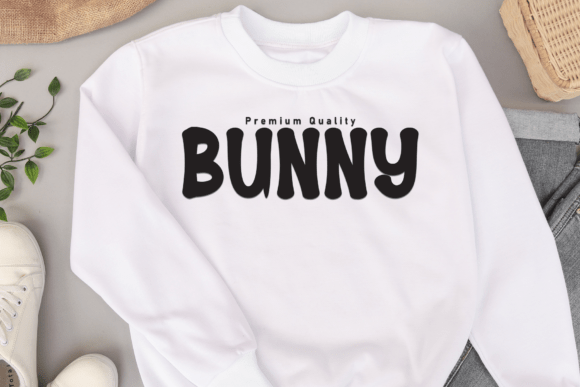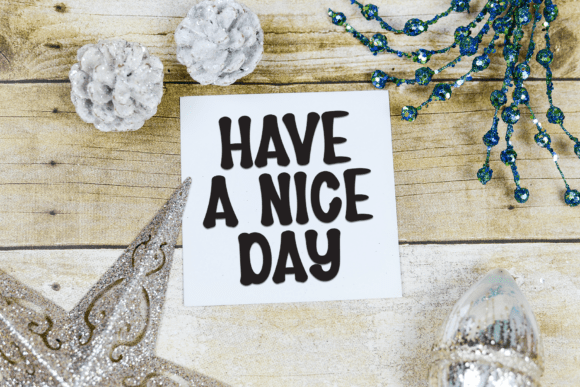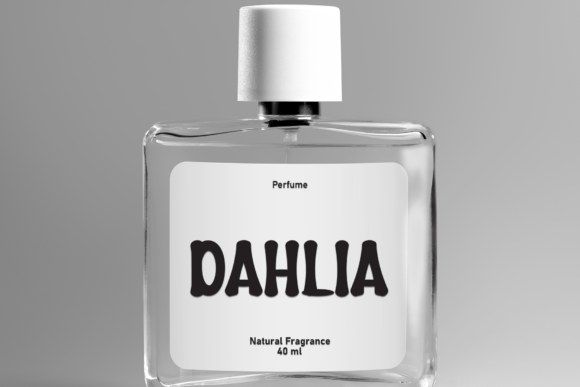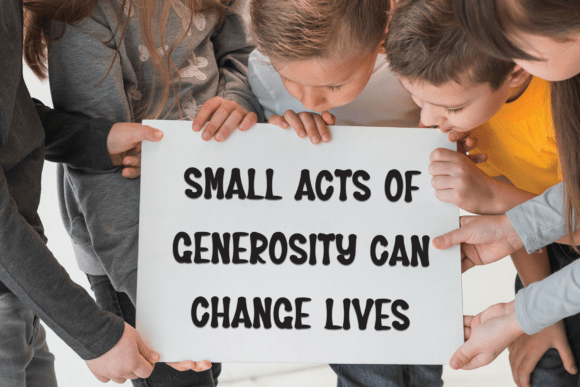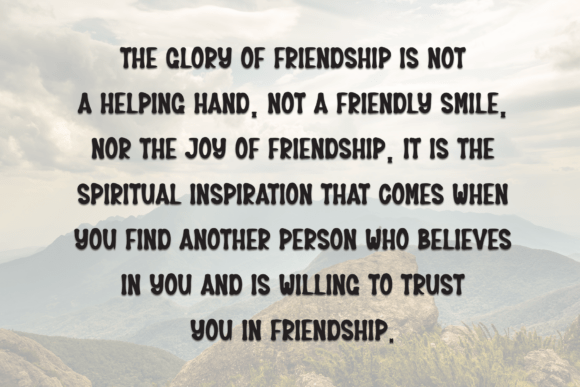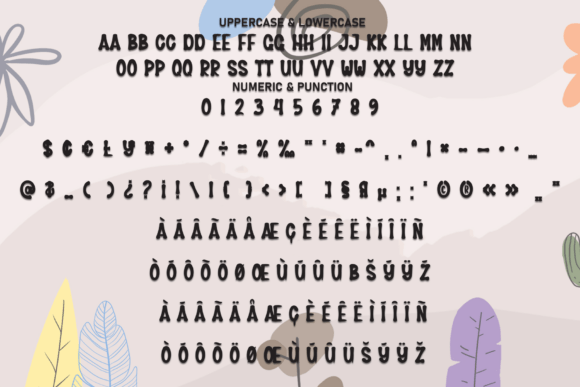
Groovy Font: Elevate Your Designs with a Captivating Handcrafted Typeface
Are you tired of using the same old fonts in your designs? Look no further! Introducing the Groovy Font, a handcrafted typeface that is brimming with joyous expression. This playful and charming font is perfect for designers and crafters who want to add a touch of enchantment to their creative projects.
The Perfect Font for Dreamy Designs
The Groovy Font is effortlessly elevating the world of design with its unique and captivating style. Its playful charm makes it the ideal match for conjuring dreamy wedding invitations, heartfelt greeting cards, or any design mission seeking a touch of whimsy. Whether you’re a designer, crafter, or DIY enthusiast, this font is sure to breathe life into your design dreams.
What Makes Groovy Font So Special?
So, what sets the Groovy Font apart from other fonts? Here are just a few features that make it truly special:
- Handcrafted with love: Each letter has been carefully crafted to ensure a unique and personal touch.
- Playful and charming: The Groovy Font has a joyful and whimsical feel that’s perfect for designs that need a touch of personality.
- Versatile: Use it for wedding invitations, greeting cards, posters, or any other design project that needs a dash of enchantment.
How to Use Groovy Font in Your Designs
Using the Groovy Font in your designs is easy! Here are a few tips to get you started:
- Pair it with other fonts: The Groovy Font pairs perfectly with other fonts to create a unique and eye-catching design.
- Experiment with colors: Try using different colors to add an extra touch of personality to your design.
- Play with textures: Add a touch of whimsy to your design by incorporating textures and patterns.
Design Ideas to Get You Started
Still not sure how to use the Groovy Font in your designs? Here are a few ideas to get you started:
- Wedding invitations: Create beautiful and unique wedding invitations that set the tone for a magical day.
- Greeting cards: Design heartfelt greeting cards for special occasions like birthdays, anniversaries, and holidays.
- Posters and flyers: Use the Groovy Font to create eye-catching posters and flyers for events, promotions, or products.
- Social media graphics: Add a touch of personality to your social media graphics with the Groovy Font.
- Handcrafted typeface
- Playful and charming style
- Perfect for wedding invitations, greeting cards, posters, and more
Get ready to add a touch of magic to your designs with the Groovy Font!